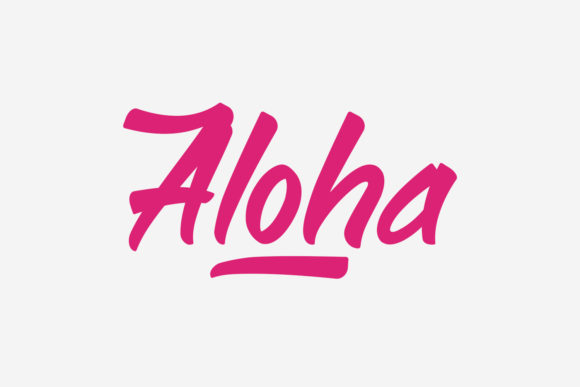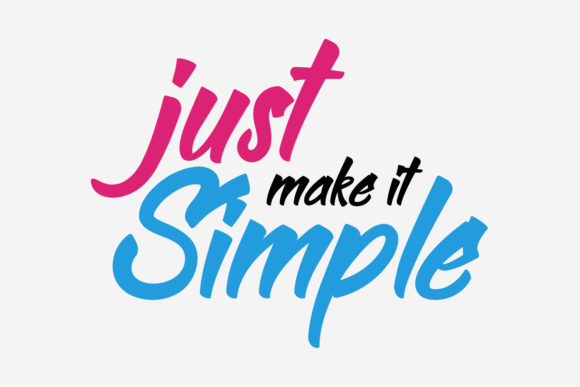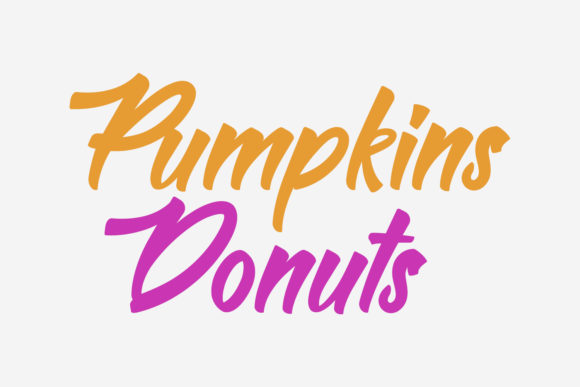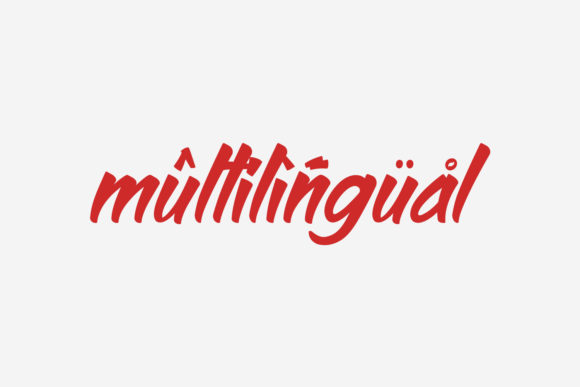
Betshy Font
About Betshy Font
Betshy is a stunning handwritten font with a bold twist. Add a dynamic feel to any design project with this one-of-a-kind font!